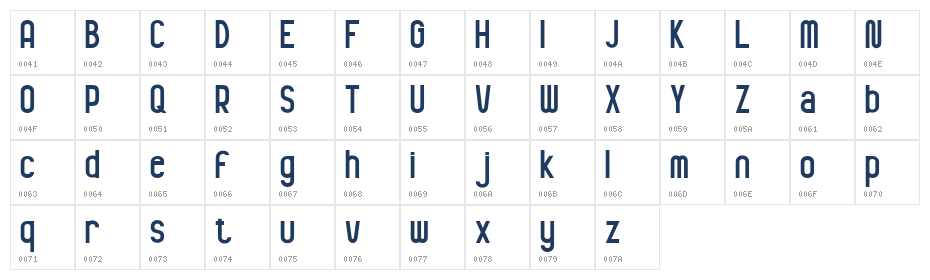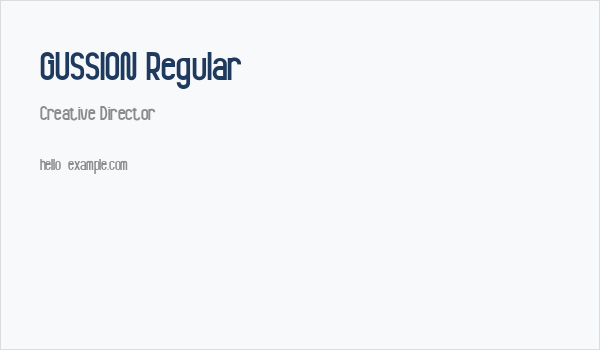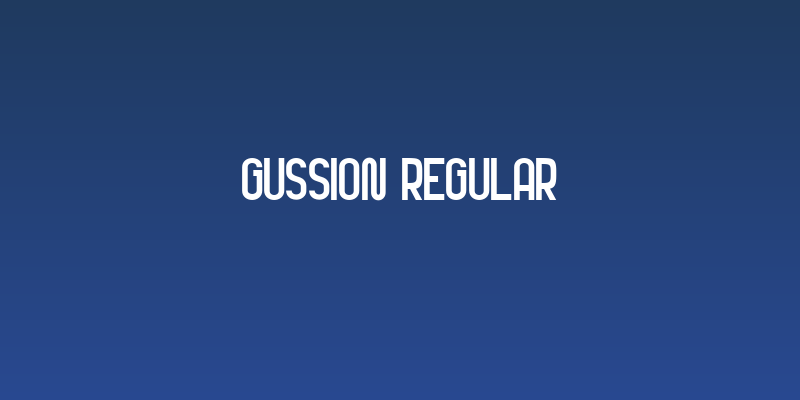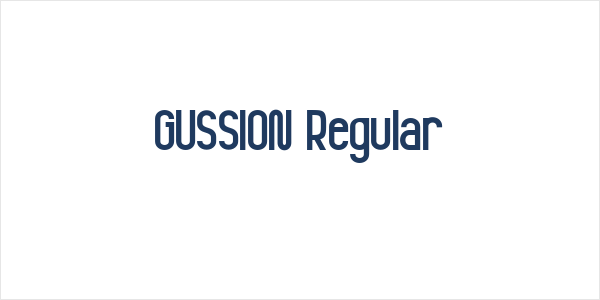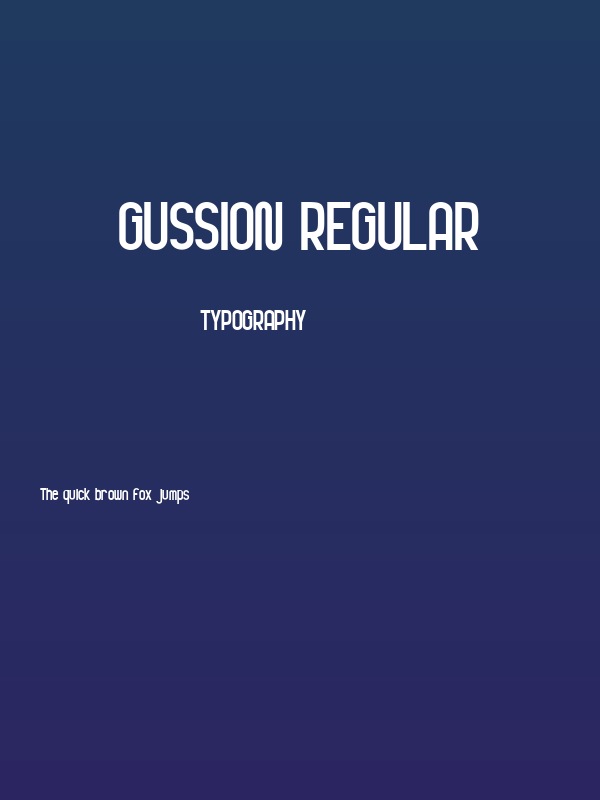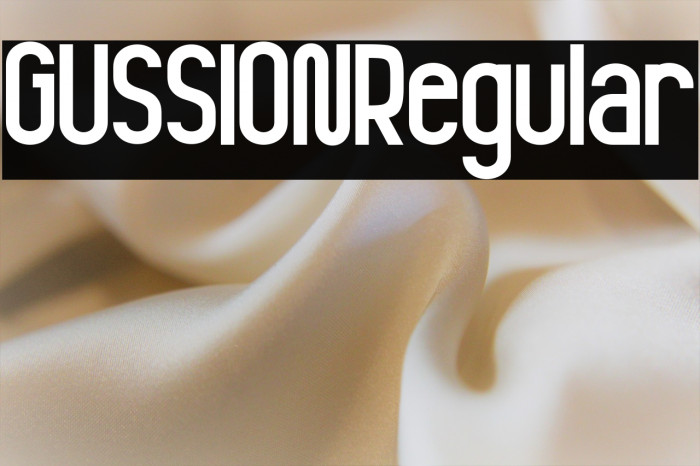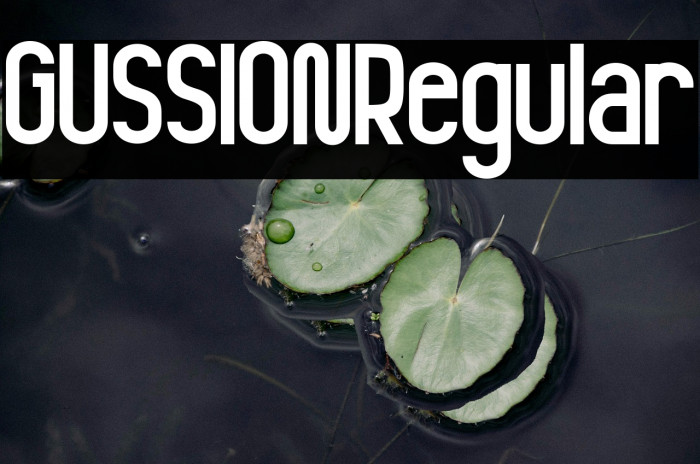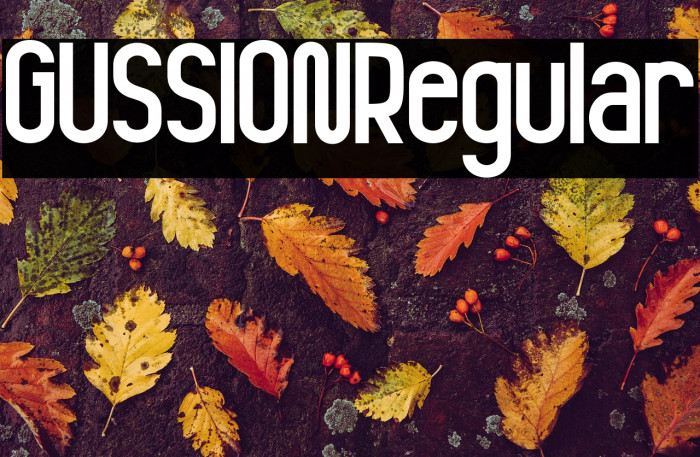
GUSSION Regular Font
A bold, rounded sans-serif font with a modern and friendly appearance, featuring uniform stroke widths and smooth curves.
| Overall Style | Modern, Friendly |
| Use Case | Headlines, Logos, Branding, UI elements |